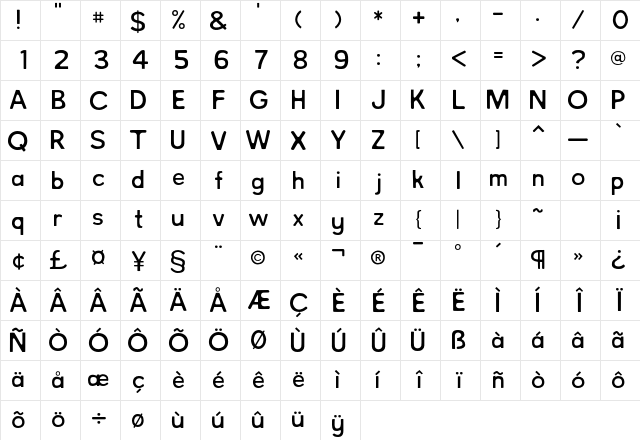
Complete NorthBergen Light glyph index. Displaying only characters natively supported by NorthBergen Light font.
NorthBergen is a composed and adaptable typeface that performs quietly and consistently across a wide range of design contexts. Its slender proportions lend an understated elegance to any composition.
Pro Tip: Use NorthBergen in both headline and body roles to test its range before committing to a single application.